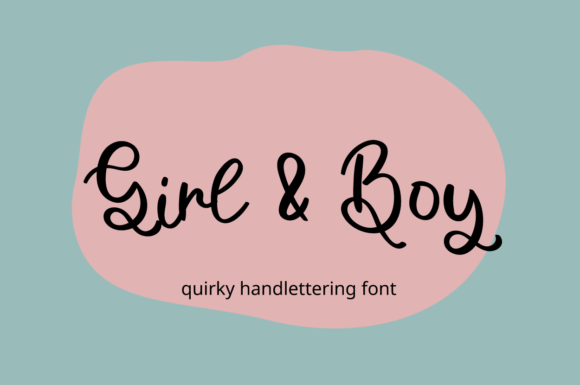
Have you ever been browsing through a design inspiration board, and suddenly, a font catches your eye? For many creatives, this is the moment when a new project starts to take shape. It’s the spark that sets off a chain reaction of ideas, and before you know it, you’re envisioning the perfect design. For me, this moment happened when I stumbled upon the Girl and Boy Font – a stunning, elegant handwritten font that exudes personality and charm.
Girl and Boy Font is more than just a pretty face; it’s a versatile tool designed to add a personal touch to a wide range of designs, from wedding invitations and thank you cards to logos and greeting cards. Its unique style makes it a valuable asset for designers looking to elevate their work and leave a lasting impression.
Key Features of “Girl and Boy Font”
- Unique Characteristics: The font features a playful and whimsical design, with rounded edges and subtle curves, making it perfect for children’s books, educational materials, and family-friendly branding.
Girl and Boy Font Review
Overall, the Girl and Boy Font is a fun and playful font that can add a touch of whimsy to your designs. ✨ I appreciate how it comes in two styles, a more delicate “girl” version and a bolder “boy” version, which allows for a lot of creative freedom.
- ✨ The font’s playful and informal feel makes it perfect for projects that require a lighthearted tone, such as children’s books or social media graphics.
- ✨ The font is highly customizable, with options for color, size, and spacing, making it easy to integrate into your design.
- ✨ The font is highly legible, even at smaller sizes, making it a great choice for body text.
However, there are a few limitations to consider. ⚠️ The font may not be suitable for formal or professional projects, as its playful feel may come across as unprofessional. Additionally, the font’s lines can be quite thin, which may make it difficult to read in certain situations.
Overall, I think the Girl and Boy Font is a great choice for designers looking to add a touch of whimsy to their projects. While it may have some limitations, its playfulness and customizability make it a valuable addition to any designer’s toolkit.
The “Girl and Boy Font” is ideal for:
- Children’s products and packaging
- Education and learning materials
- Toy and game branding
- Young adult marketing campaigns